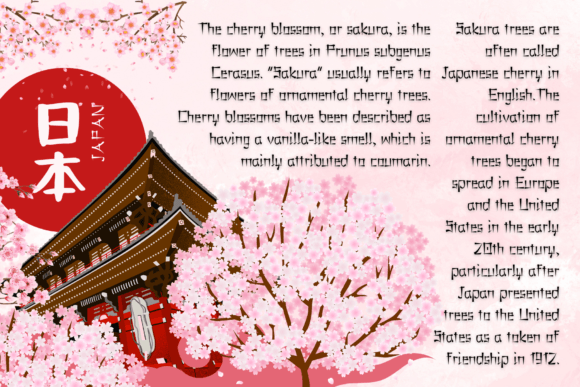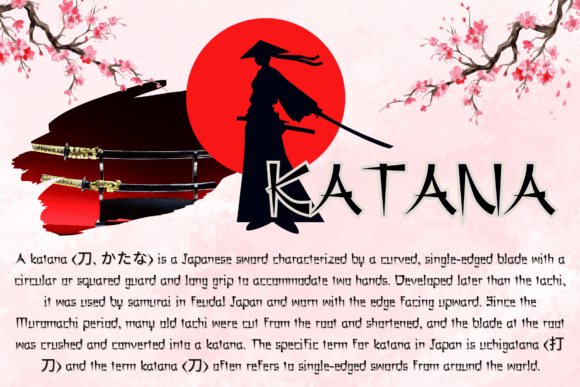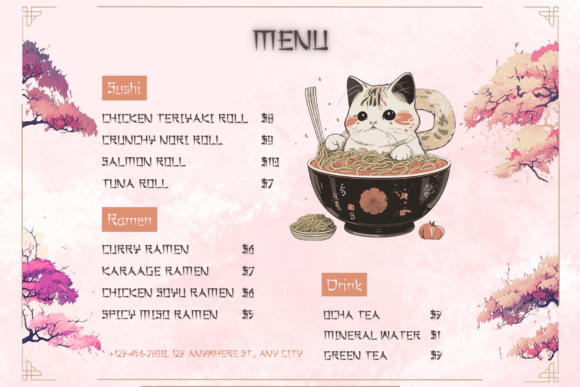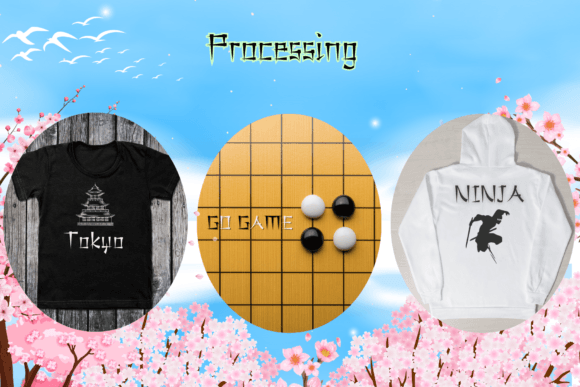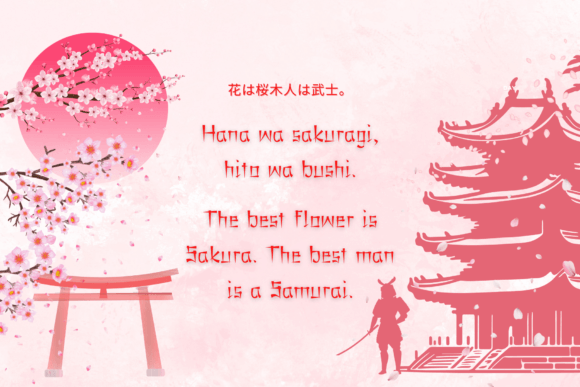
Introduction to Sakura Blade Font
Have you ever been captivated by the serene beauty of cherry blossoms, or the elegance of traditional Japanese samurai attire? For designers seeking to infuse their creative projects with a touch of Eastern culture, the Sakura Blade Font is a game-changer. This stunning font is designed to evoke the essence of Japan, from the delicate petals of sakura trees to the bold, intricate patterns of traditional Japanese art.
As a valuable design resource, the Sakura Blade Font offers a unique opportunity for creatives to add a touch of high-quality, authentic flair to their work. Whether you’re working on a logo, graphic novel, or digital art piece, this font is sure to impress. And the best part? It’s available for free download, complete with a transparent background that makes it easy to integrate into any design project.
With its beautiful, hand-drawn characters and sleek, modern aesthetic, the Sakura Blade Font is a must-have for any designer looking to take their creative project to the next level. So why settle for a generic, mass-produced font when you can add a touch of Japanese elegance to your work with the Sakura Blade Font?
Key Features of Sakura Blade Font
- High-quality design resource ideal for creative projects, offering a unique and elegant aesthetic.
- Transparent background, allowing for seamless integration with any design or image.
- Includes a range of characters and glyphs, making it suitable for various languages and applications.
- Designed with precision and attention to detail, resulting in a crisp and clear appearance at high resolutions (up to 300 DPI).
Honest Review: Sakura Blade Font
As a designer, I’m always on the lookout for high-quality fonts that can elevate my creative projects. The Sakura Blade Font is one of those finds that I’m excited to share with you.
What works well: ✨ The Sakura Blade Font has a beautiful, delicate design that’s perfect for projects that need a touch of elegance. The font is highly customizable, with a transparent background that makes it easy to layer over images or other design elements. I also appreciate that it’s available for free download, making it a valuable resource for designers on a budget.
- Beautiful, delicate design
However, I do have a few minor quibbles: ⚠️ The font could benefit from more weights and styles, especially for designers who want to create a consistent look across their project. Additionally, the font may not be suitable for projects that require bold or dramatic typography.
Overall, I’m really impressed with the Sakura Blade Font. It’s a great addition to any designer’s toolkit, and I appreciate the thought and care that went into creating it. If you’re looking for a high-quality font for your creative project, I highly recommend giving it a try.
Tips for Getting the Most Out of Sakura Blade Font
Use Sakura Blade Font for creative projects that require a high-quality, elegant design.
Combine Sakura Blade Font with other design resources for a unique and eye-catching look.
Experiment with different font sizes and styles to achieve the desired effect.
Sakura Blade Font is ideal for:
Branding and marketing materials
Photography and graphic design projects